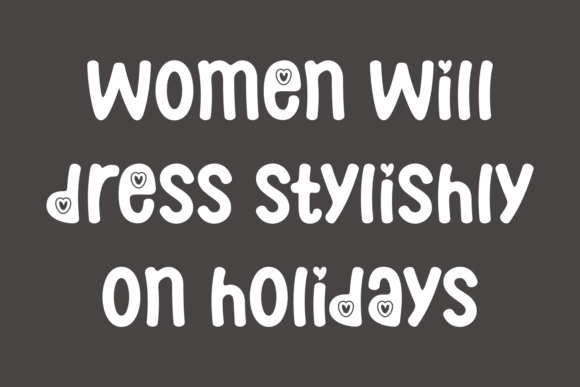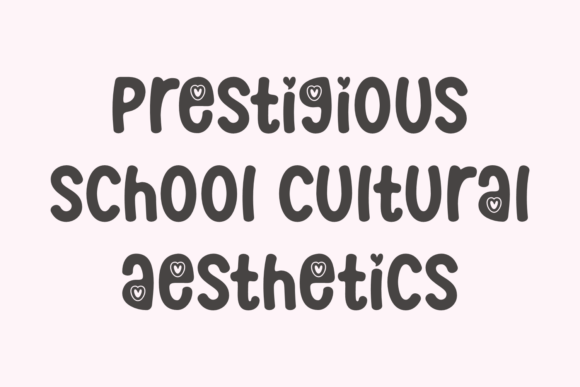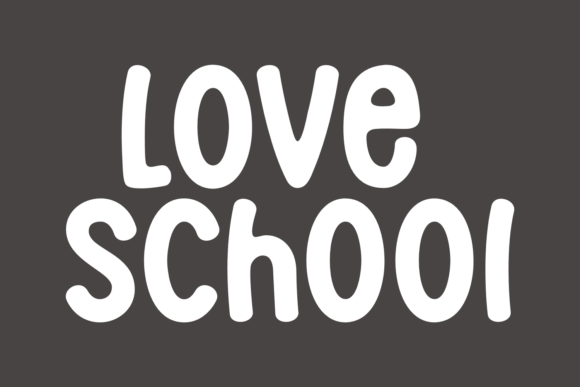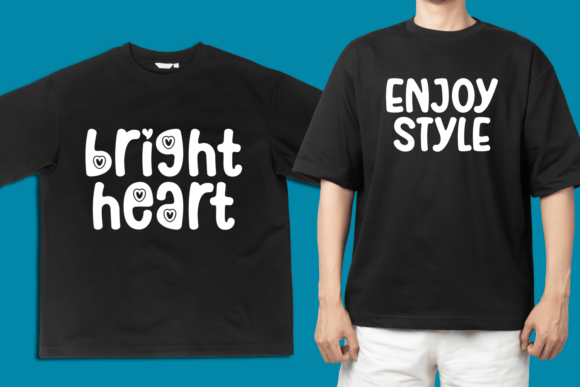
Introduction to It’s My Preppy Style Font Font
Fonts play a crucial role in design, and the It’s My Preppy Style Font font is a typeface that brings both character and versatility to any project. Whether you’re working on a branding project, a website, or a print design, the It’s My Preppy Style Font font offers a unique style that can elevate your work.
Introducing a charming and versatile typeface, perfect for educators, students, and design enthusiasts.
Imagine a mashup of preppy, and cute, tailored like the clean pages of a notebook This isnβt just an ordinary typeface; itβs handwritten, exuding the warmth and approachability typical of school scripts, a vibrant blend of trendy meets bubble letter artistry.
Key Features of It’s My Preppy Style Font Font
Why Choose It’s My Preppy Style Font Font?
The It’s My Preppy Style Font font is more than just a typeface β it’s a design tool that helps you communicate your message with style and clarity. Its unique character set and versatile design make it suitable for a wide range of applications, from elegant invitations to bold headlines.
With its carefully crafted letterforms and balanced proportions, the It’s My Preppy Style Font font ensures readability and visual appeal across all mediums.
What makes It’s My Preppy Style Font font special?
The It’s My Preppy Style Font font stands out with its unique design, exceptional readability, and versatility across various design applications.